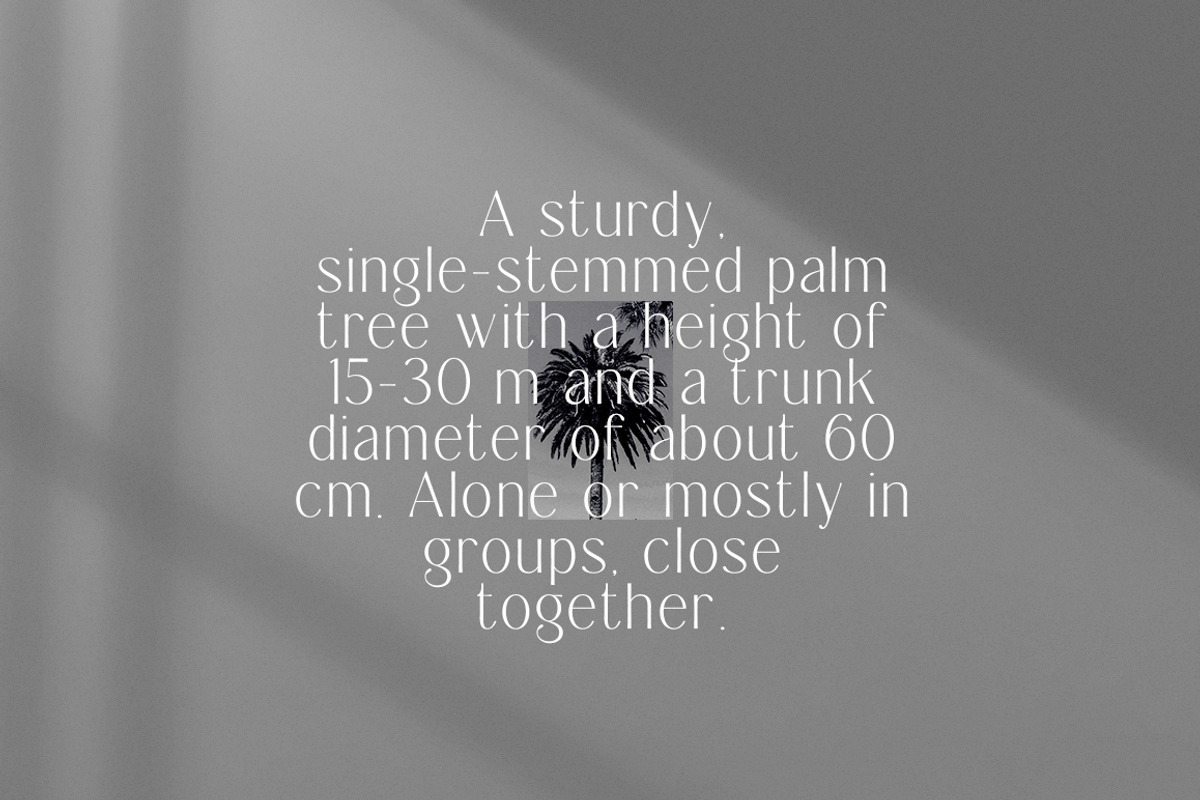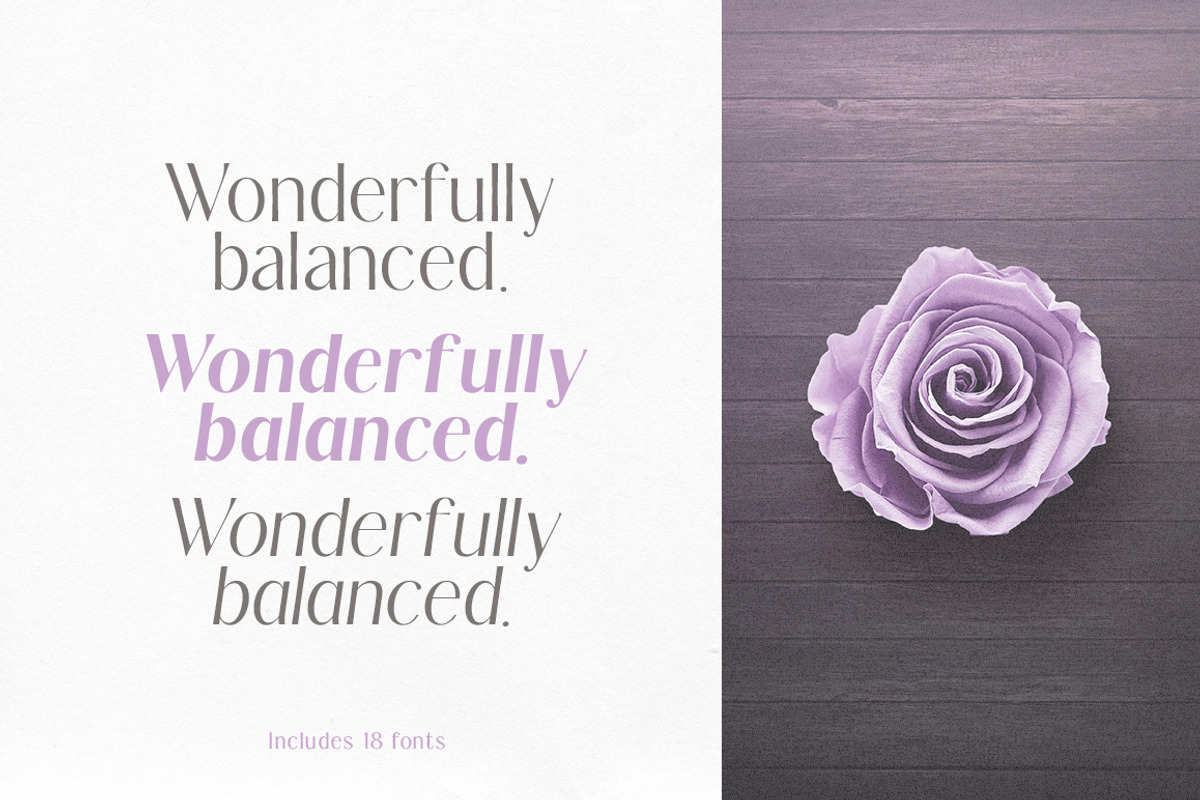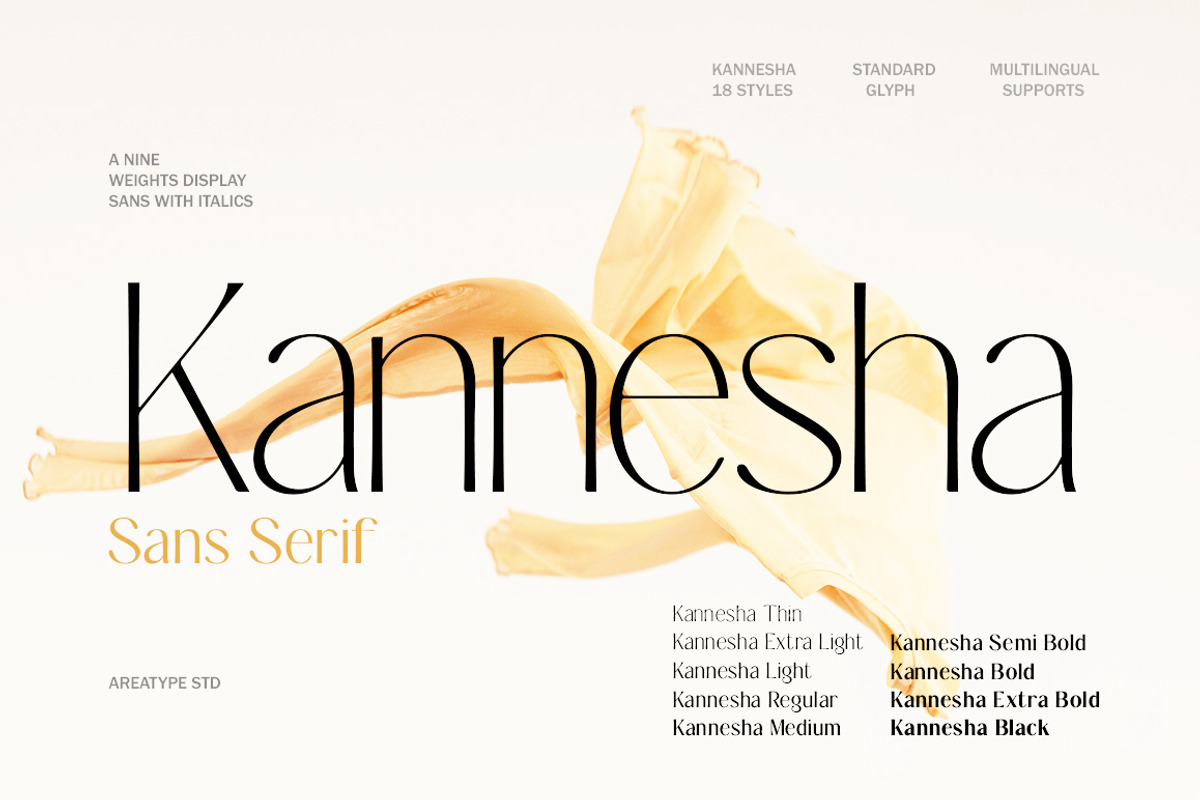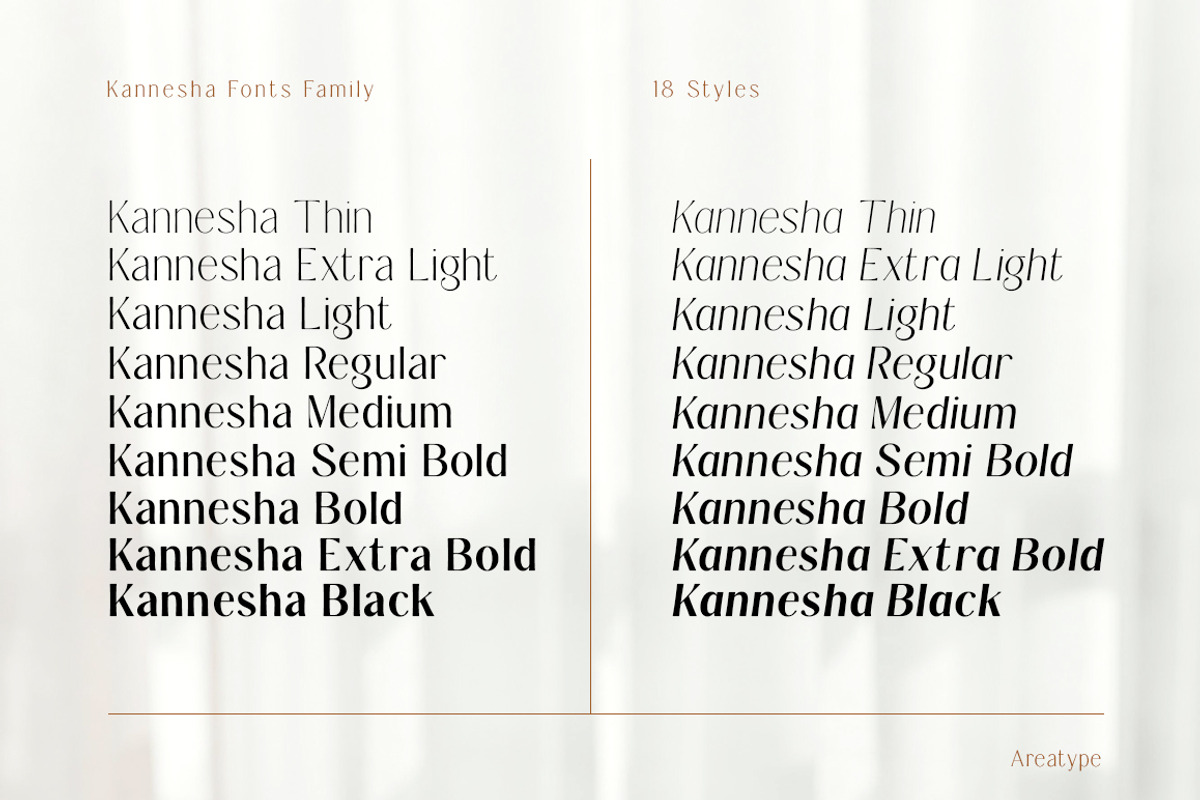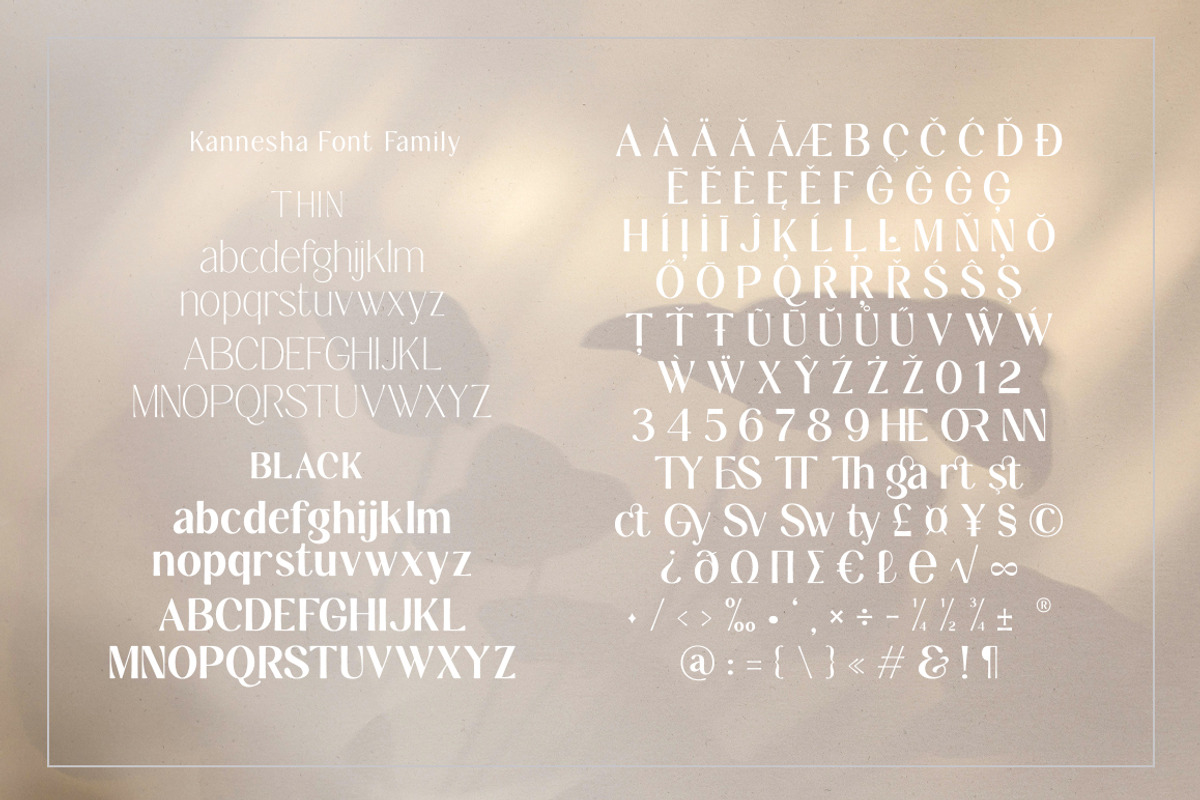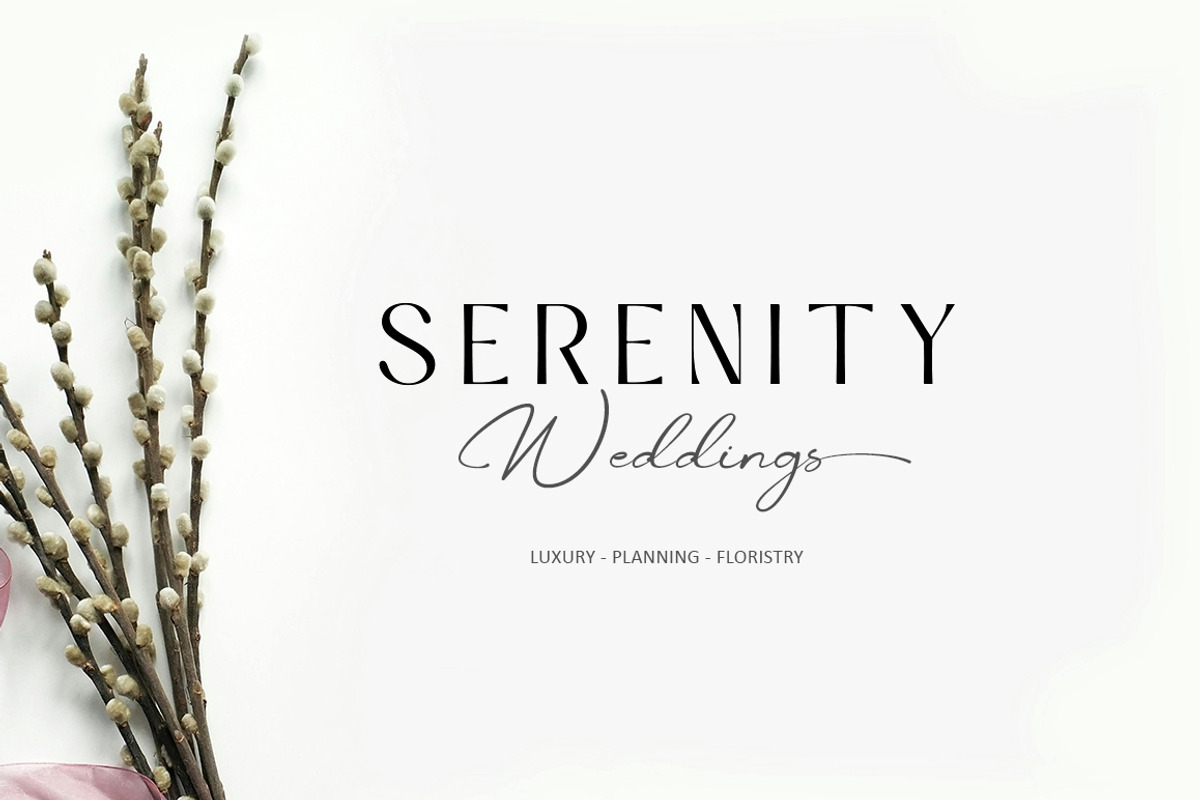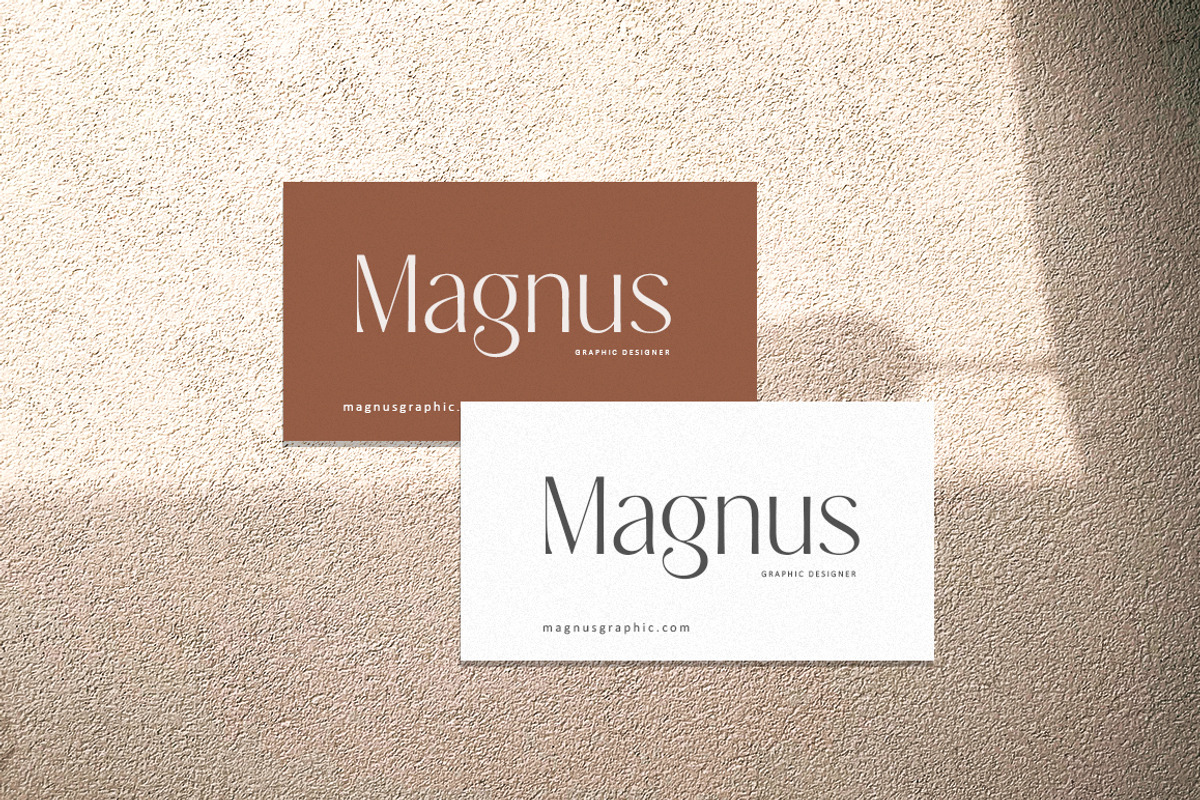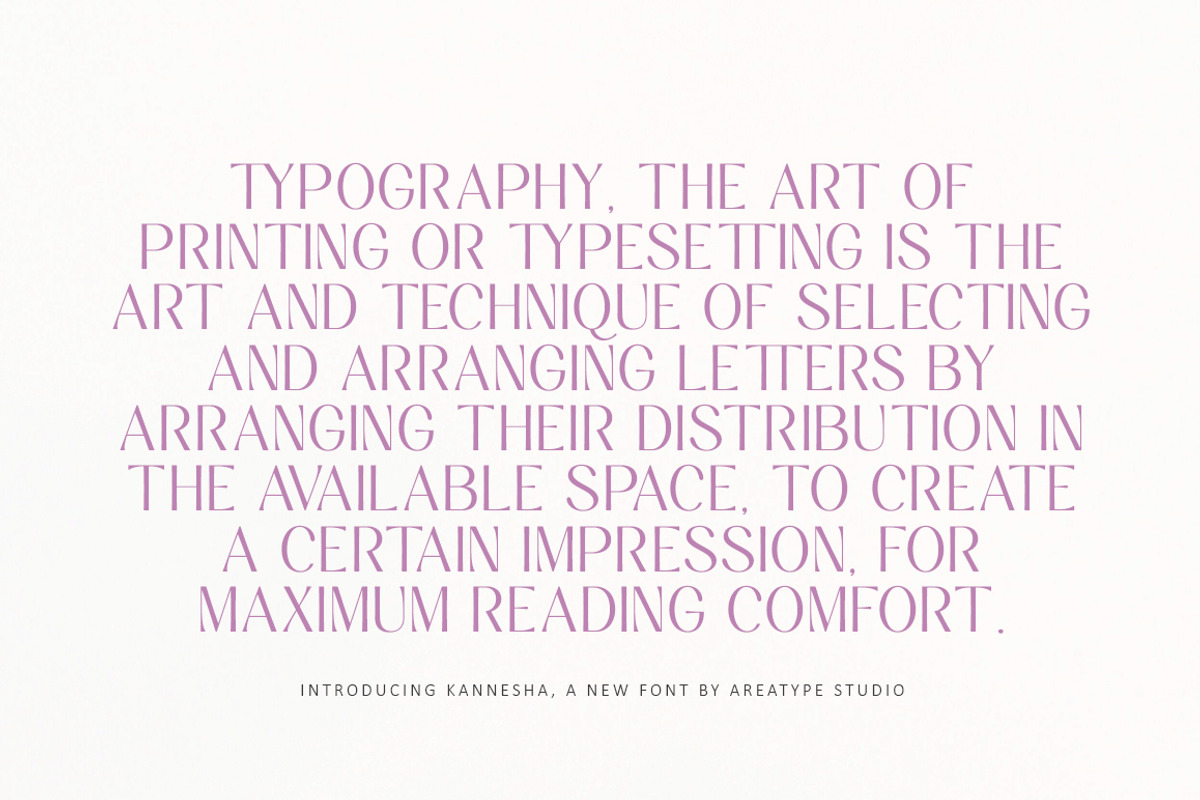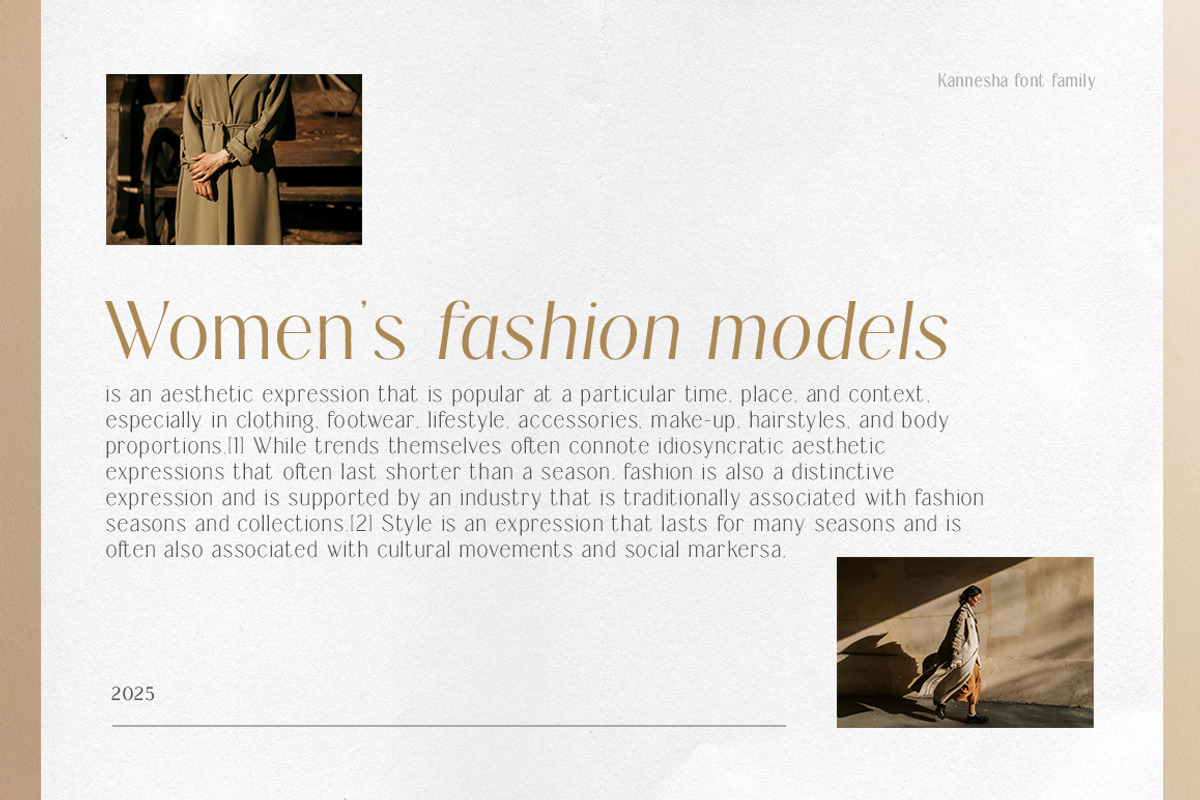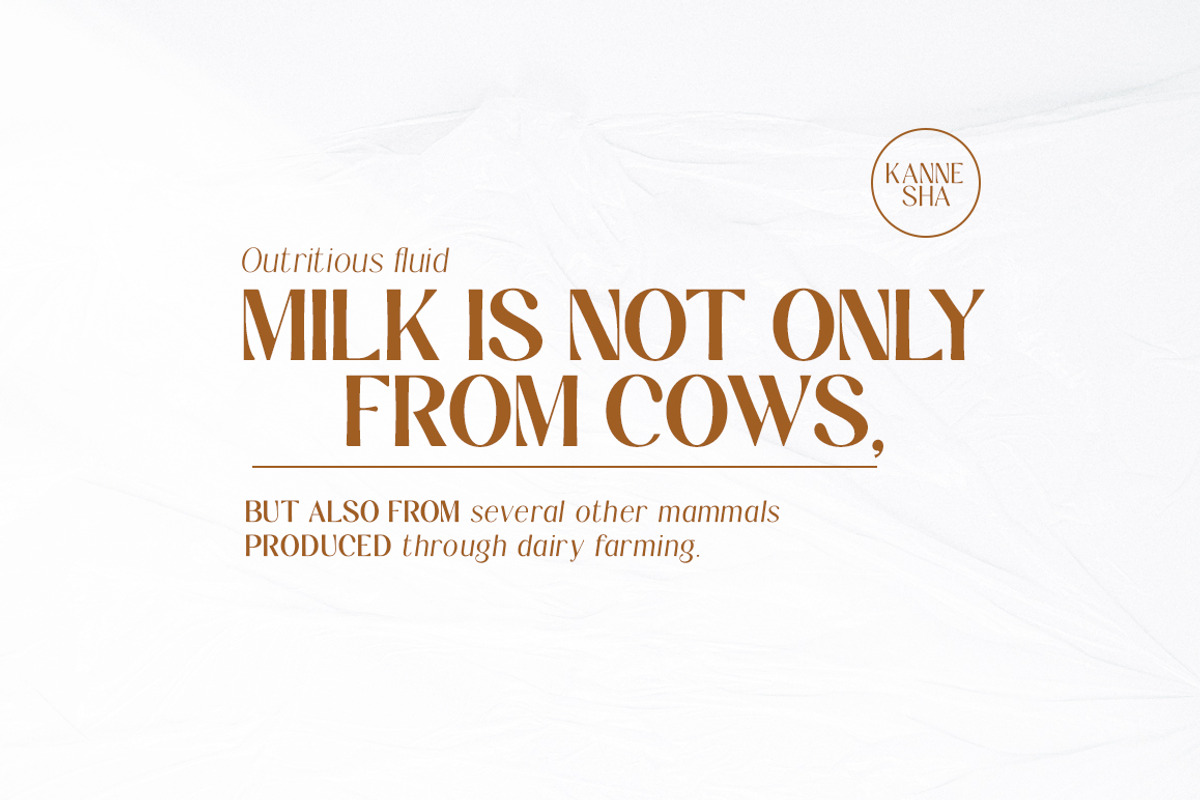
Kannesha Sans Serif (18 fonts)
Kannesha Sans serif is a very versatile font. perfect for magazine images, to wedding invitations, to branding, poster design, and more.
- Kannesha Family
- Kannesha Italic Family
- Numerals, Punctuation & Ligatures